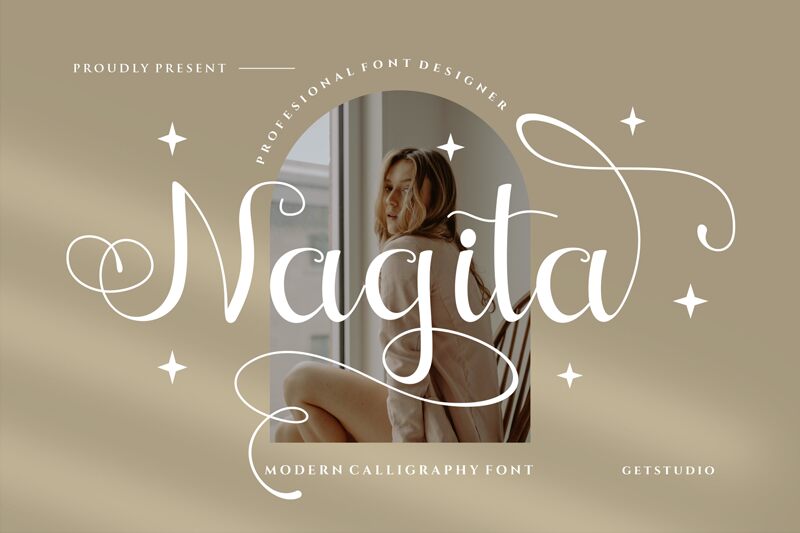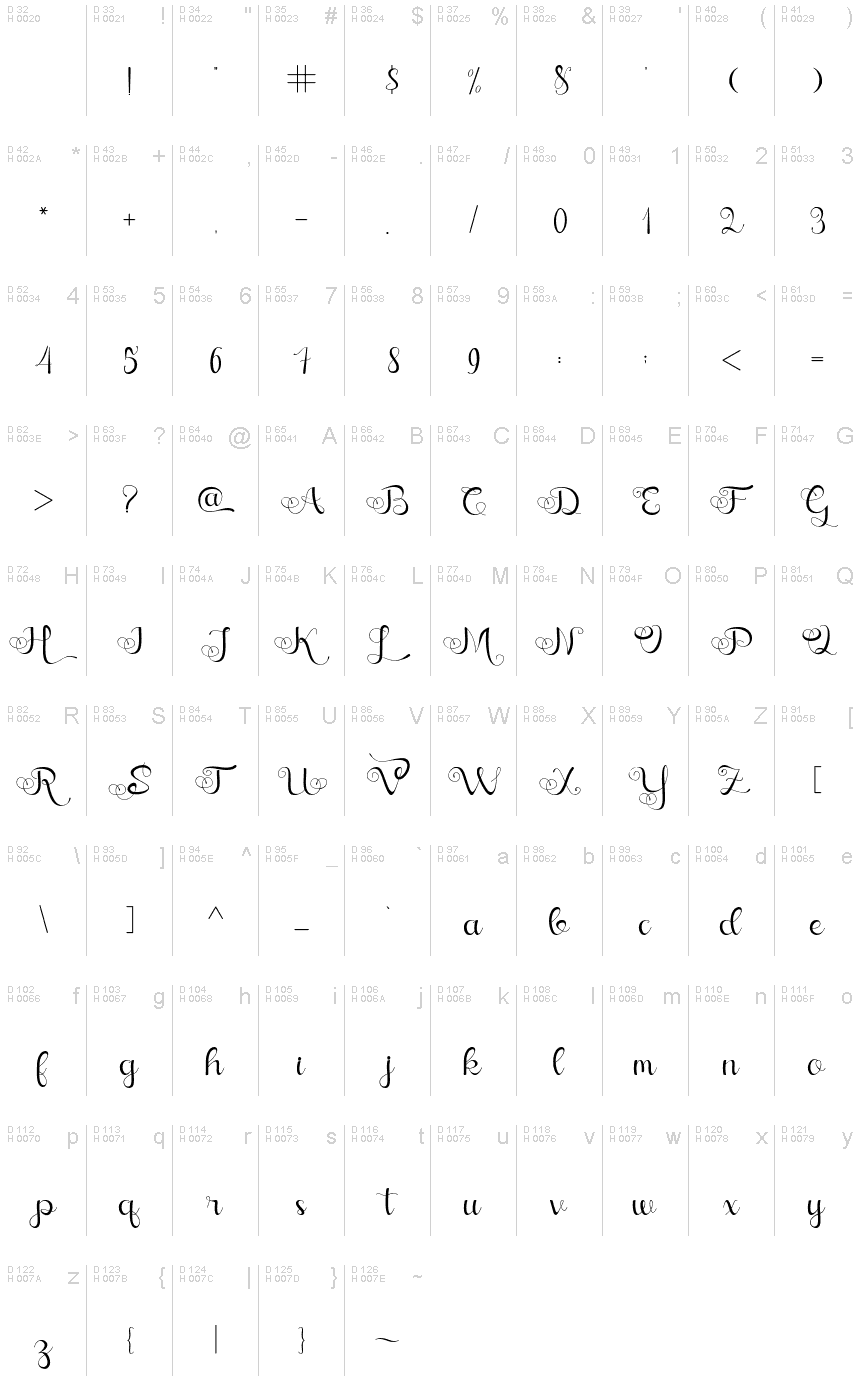
Nagita
Nagita is a stunning calligraphy font designed by Get Studio. Its semi-light weight and delicate strokes make it perfect for elegant designs such as wedding invitations, greeting cards, and feminine branding projects. Nagita's flowing lines and graceful curves add a touch of sophistication to any project. Whether you're designing a logo for a high-end fashion brand or creating stunning graphics for social media, this font will elevate your work to the next level. With its timeless appeal and versatile style, Nagita is truly a must-have font for any designer looking to add some elegance to their work.